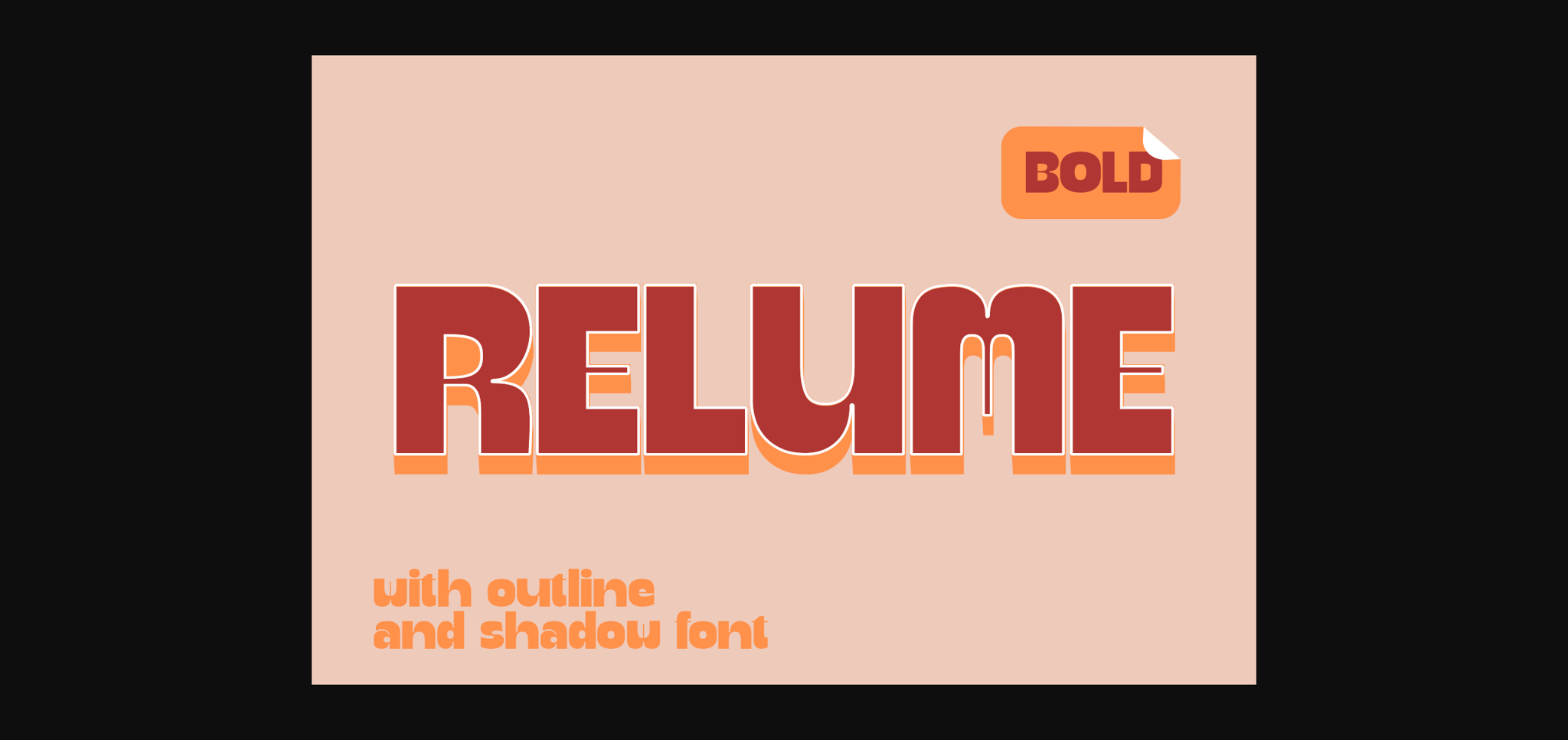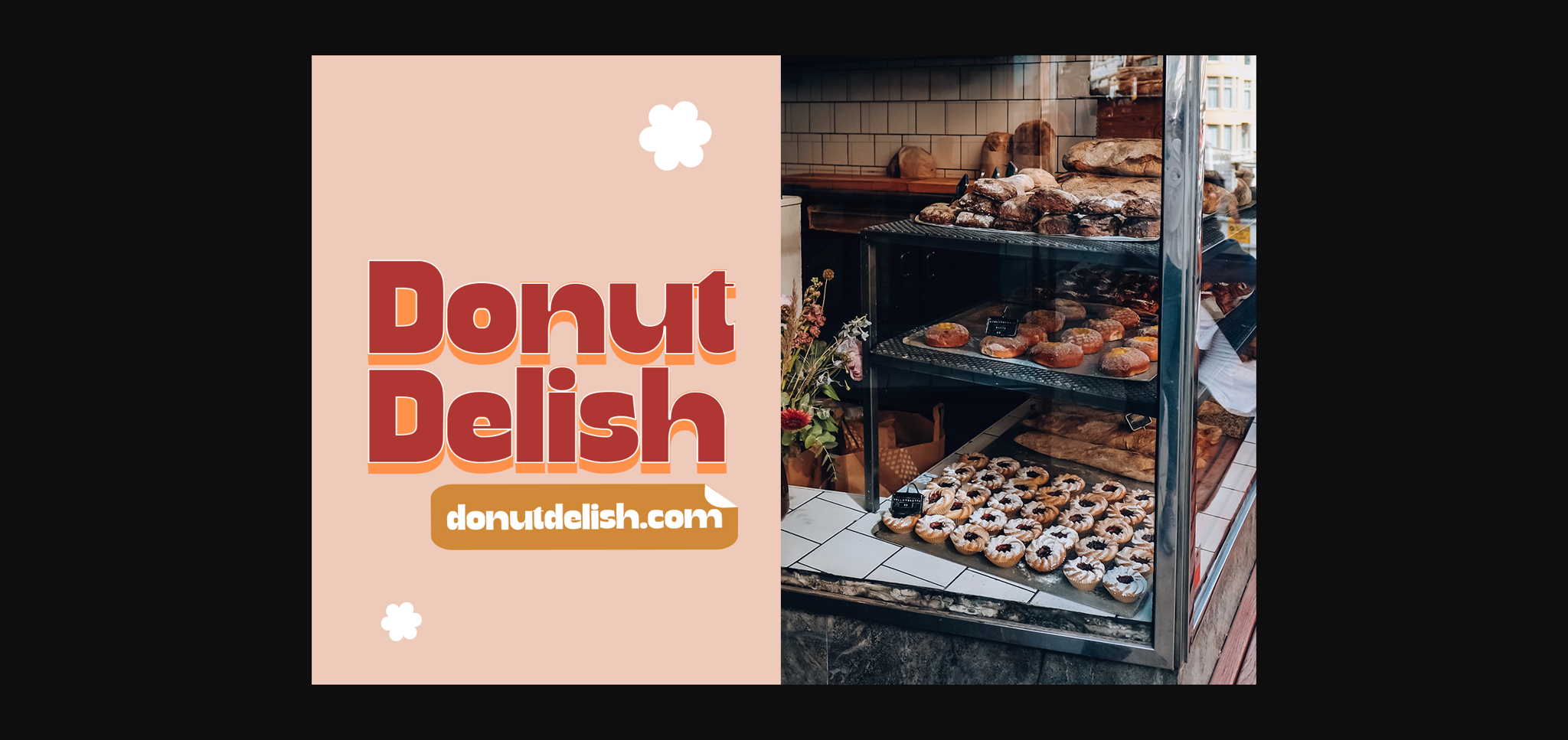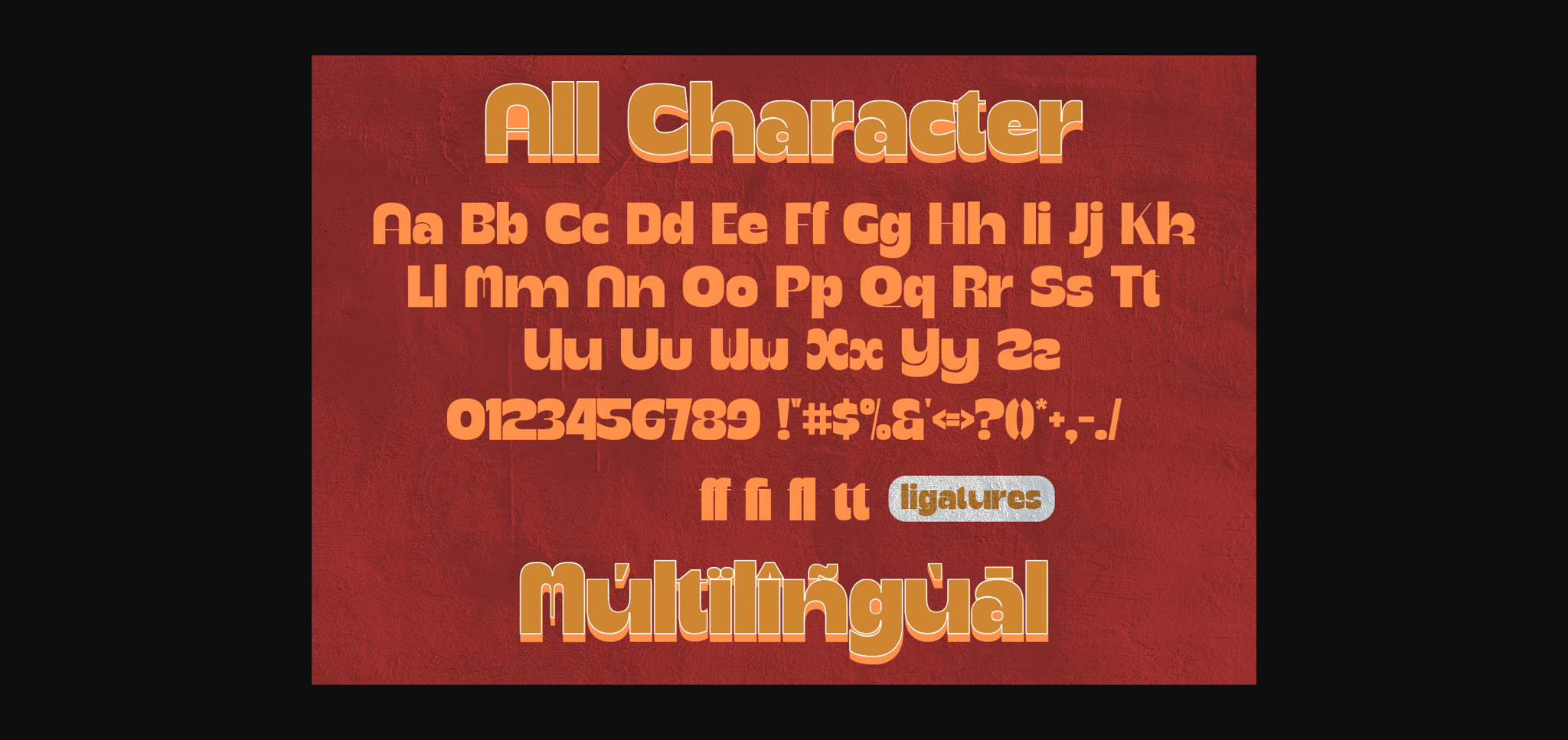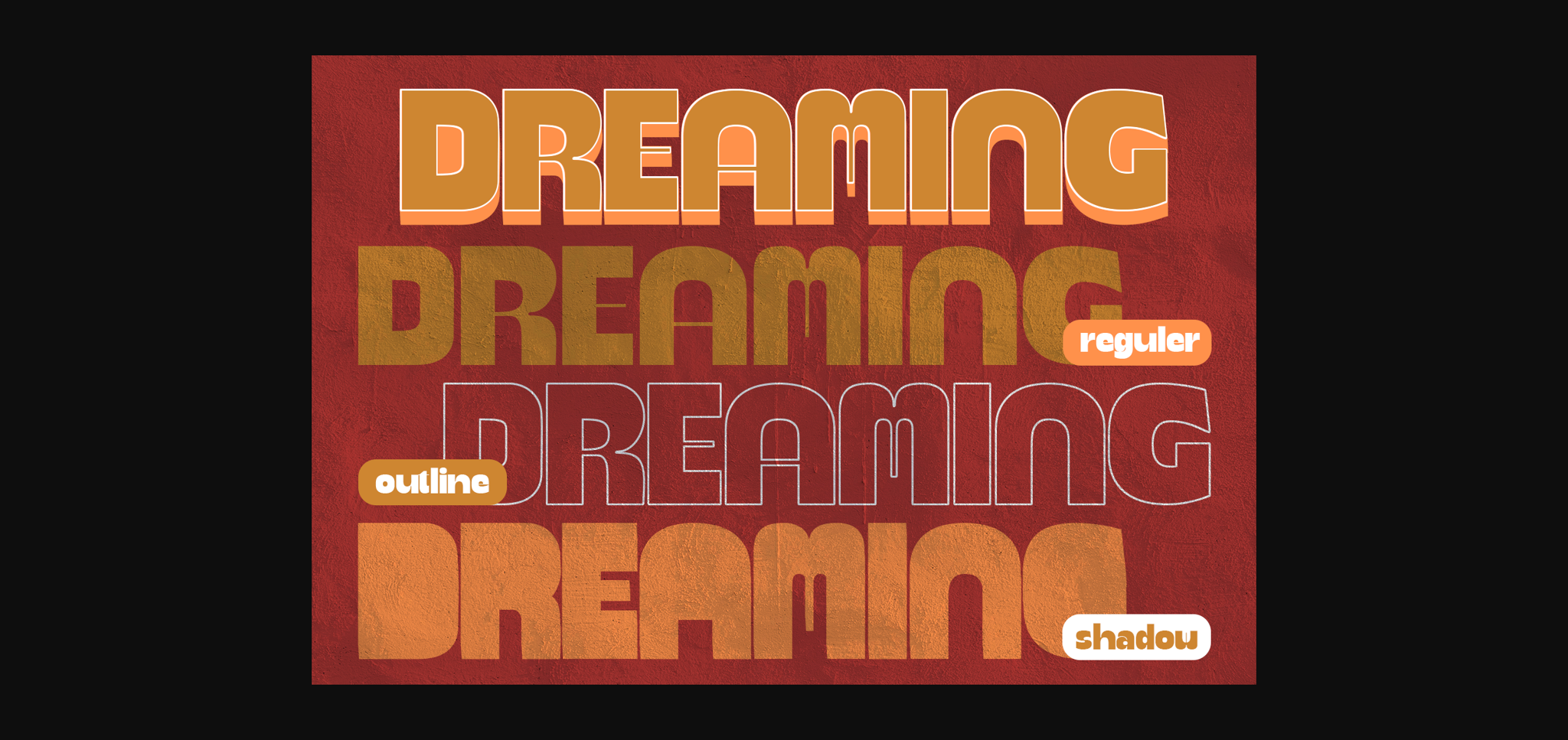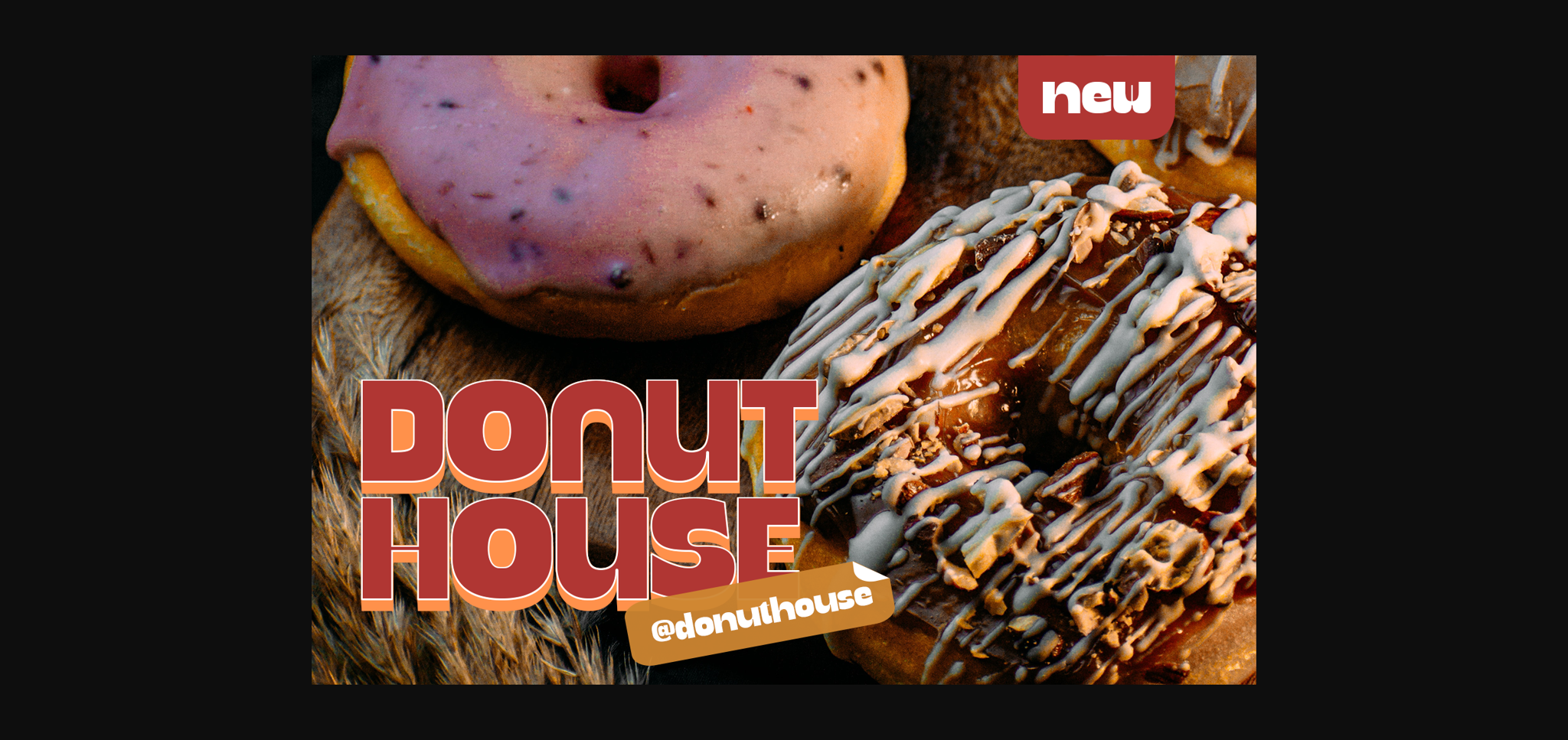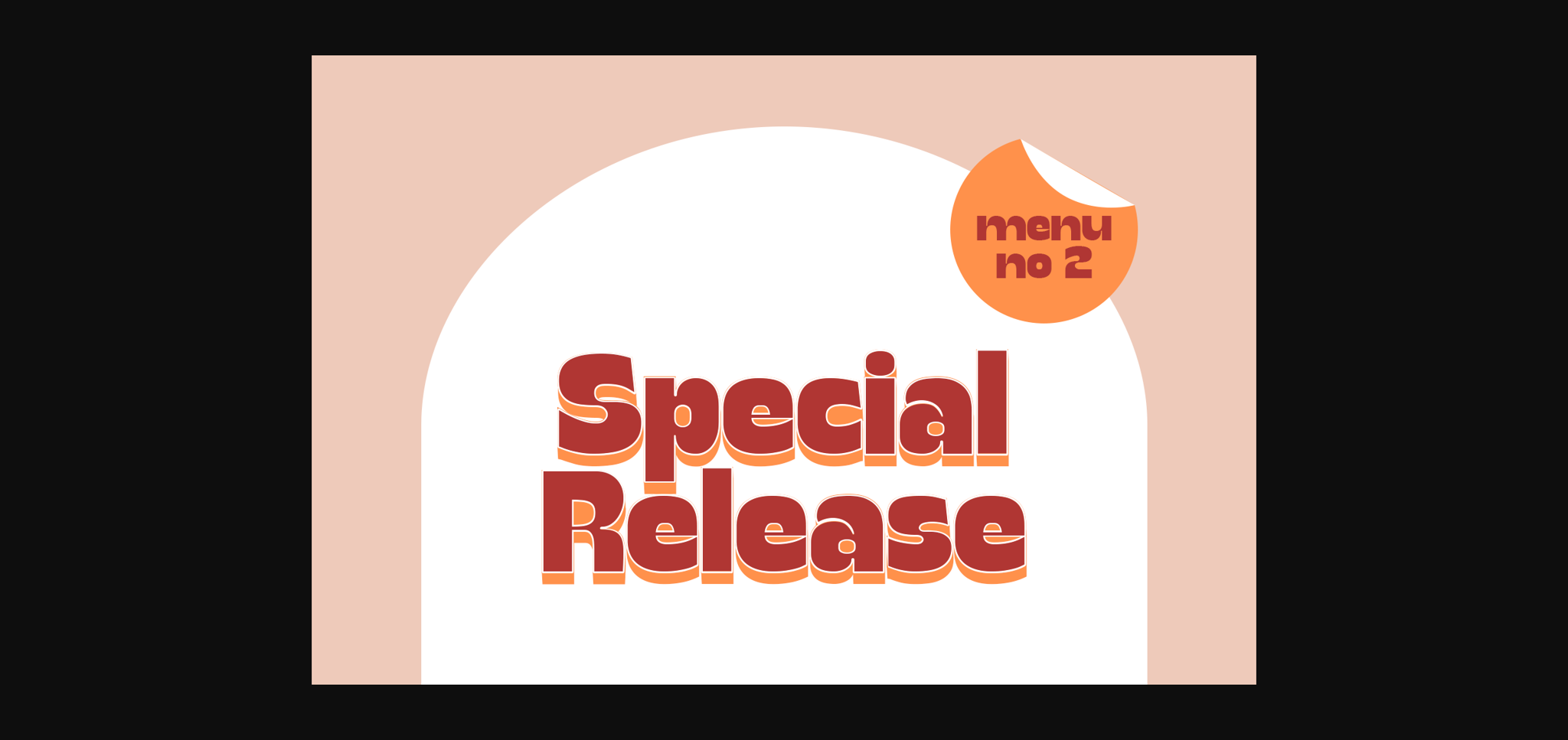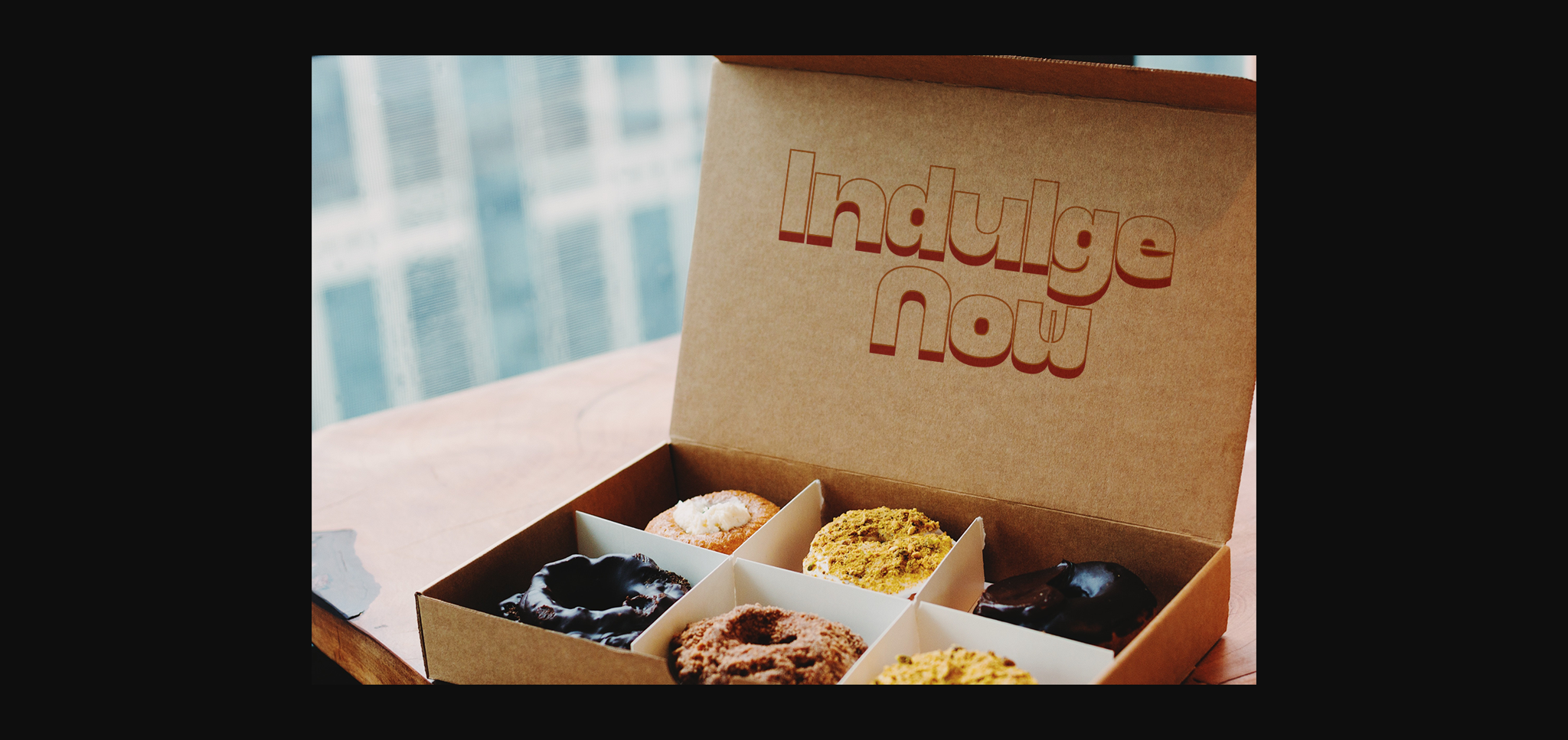
About Relume Font
RELUME – Retro Bold with outline and shadow
Relume’s adaptable font, boasting a bold retro variant alongside intricate outline and striking shadow elements, lends itself masterfully to a plethora of design applications. Whether crafting eye-catching logos, dynamic posters, or establishing a compelling brand identity, Relume excels in delivering a unique and memorable visual experience.